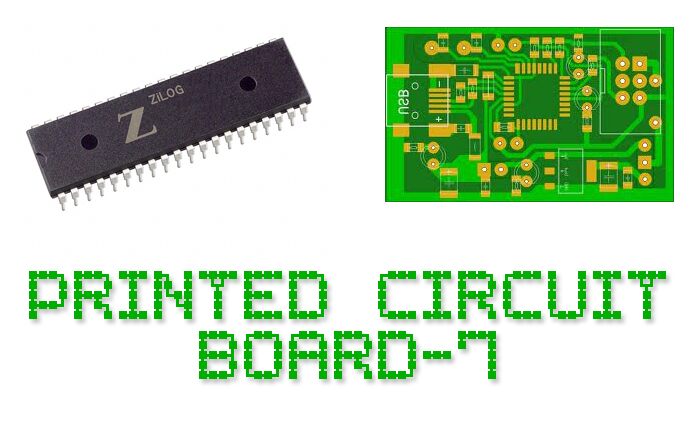
Printed Circuit Board-7, created by Style-7, is a free techno display font modeled on electronic circuitry. Its letters follow angular tracks with square junctions and occasional open breaks. The narrow strokes keep the forms airy.
Electronics brands could use it for packaging and advertising with a hardware theme. It also suits game interfaces and science event posters, where circuit paths extend the imagery. On product graphics, the lettering becomes part of a printed-board identity rather than a neutral label.
Printed Circuit Board-7
Style-7